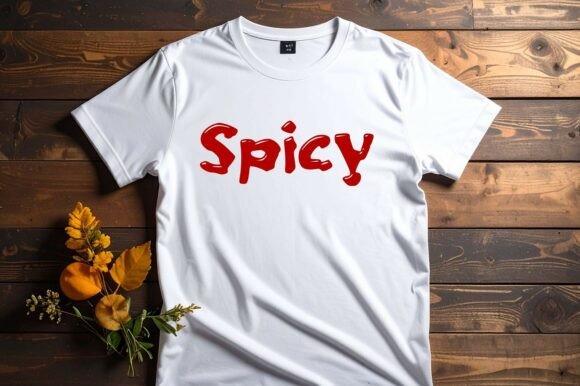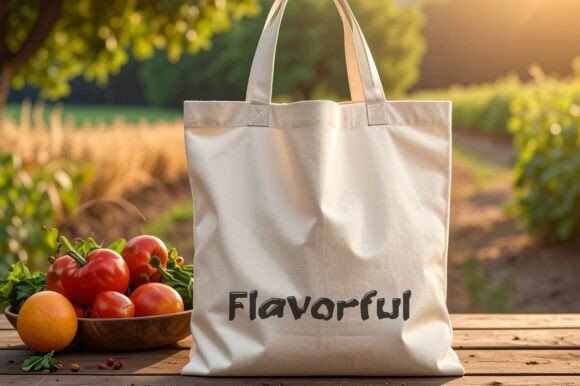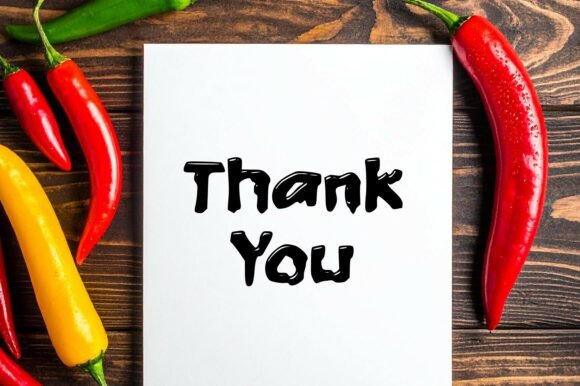
Ignite Your Creativity with Cabe Pedas Font: The Electrifying Display Handwritten Font
Are you looking for a font that can add a spark to your designs and leave a lasting impression on your viewers? Look no further than Cabe Pedas, an electrifying display handwritten font that embodies the fiery spirit of chili peppers. This bold and expressive font is designed to infuse your projects with an undeniable energy and verve, making it perfect for designers, crafters, and beginners alike.
The Inspiration Behind Cabe Pedas
Cabe Pedas draws inspiration from the captivating character and dynamic zest of chili peppers. The font’s name, which translates to “spicy head” in Indonesian, reflects its bold and fiery personality. Each stroke of Cabe Pedas is meticulously crafted to transmit an infectious energy, making it perfect for projects that demand a shot of boldness and sizzle.
Key Features of Cabe Pedas
Cabe Pedas is more than just a font – it’s a design asset that offers a range of features to enhance your typographic needs. Some of its key features include:
- Extensive range of standard punctuation glyphs: Cabe Pedas covers a vast spectrum of your typographic needs, making it highly practical for a wide range of design projects.
- Bold, expressive strokes: Cabe Pedas features bold, expressive strokes that transmit an infectious energy and verve, making it perfect for headlines, titles, and promotional materials.
Use Cases for Cabe Pedas
Cabe Pedas is a versatile font that can be used for a wide range of design projects, including:
- Vibrant food brands: Add a spicy kick to your food brand’s packaging, menus, and advertising materials with Cabe Pedas.
- Eye-catching apparel: Create bold and stylish apparel designs with Cabe Pedas, perfect for fashion brands, t-shirts, and hoodies.
- High-impact promotional materials: Use Cabe Pedas to create eye-catching posters, flyers, and brochures that demand attention.
- Social media graphics: Add a pop of personality to your social media graphics, including Instagram posts, Facebook covers, and Twitter headers.
Why Choose Cabe Pedas?
With so many fonts available, why choose Cabe Pedas? Here are just a few reasons why Cabe Pedas stands out:
- Unique personality: Cabe Pedas has a unique personality that sets it apart from other fonts, making it perfect for designers who want to add a touch of personality to their designs.
- Highly versatile: Cabe Pedas can be used for a wide range of design projects, from food brands to apparel and promotional materials.
- Easy to use: Cabe Pedas is highly practical and easy to use, with an extensive range of standard punctuation glyphs and seamless integration across diverse design software and platforms.